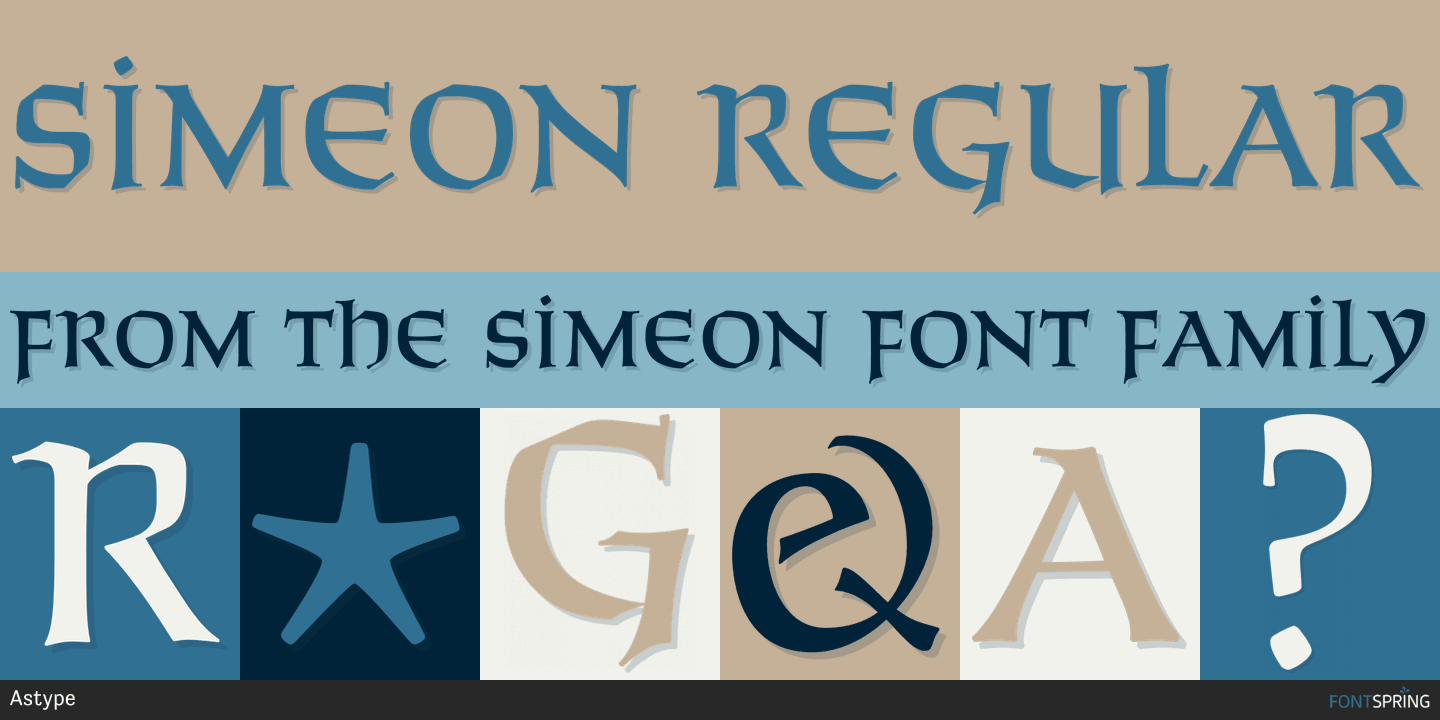
Simeon is a serif, blackletter and display serif font published by Astype.
Simeon is well suited for setting short or medium amount of text with a historic impression. Simeon offers lots of ligatures, zodiacs and ornaments.